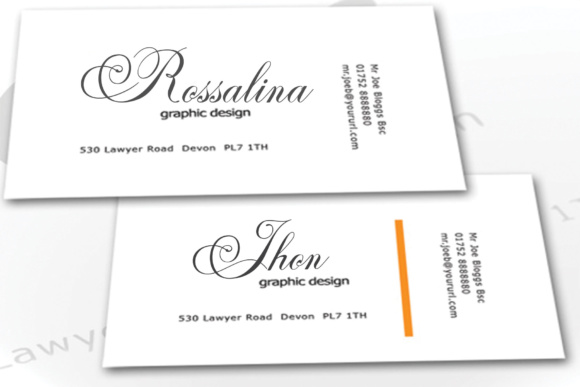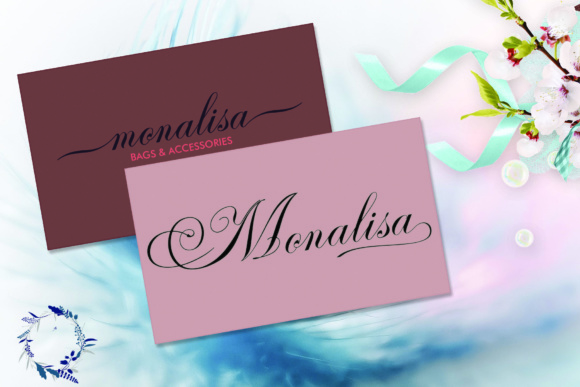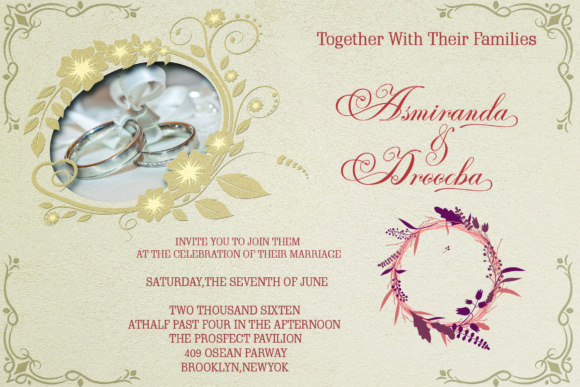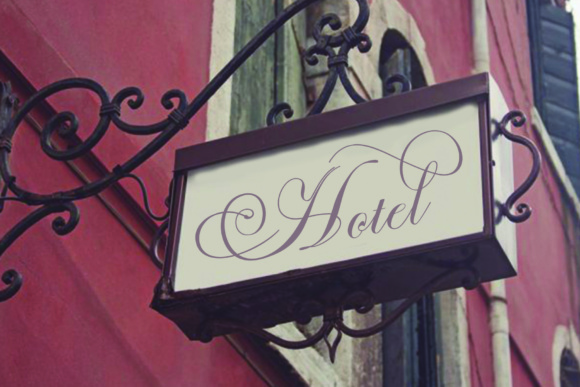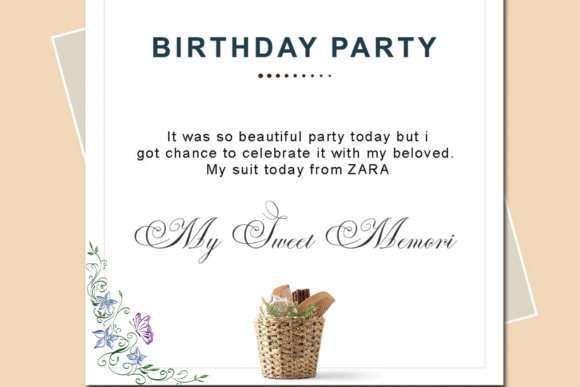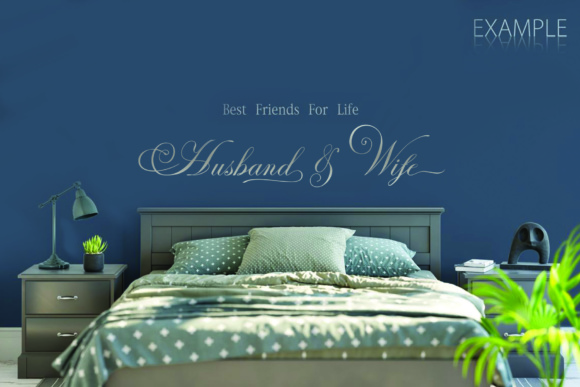
Fosshira Script Font: Elevate Your Designs with Elegant Handmade Calligraphy
The Fosshira is a handmade calligraphy font which will add a touch of elegance to every project. As a designer or crafter, you’re constantly on the lookout for unique and stylish typography to make your work stand out. Fosshira Script Font is here to help you achieve just that. In this article, we’ll dive into the world of Fosshira, exploring its features, benefits, and uses, as well as provide tips on how to incorporate it into your designs.
The Charm of Handmade Calligraphy
Fosshira Script Font is a beautiful example of handmade calligraphy, with each letter carefully crafted to exude a sense of elegance and sophistication. The font’s handmade nature gives it a personal touch, making it perfect for projects where you want to add a bit of warmth and character. Whether you’re working on a wedding invitation, a branding project, or a craft tutorial, Fosshira is sure to impress.
Key Features of Fosshira Script Font
- Handmade with love: Fosshira is carefully crafted by hand, giving it a unique and personal touch.
- Elegant and sophisticated: The font’s elegant lines and curves make it perfect for projects where you want to add a touch of luxury.
- Highly versatile: Fosshira can be used for a wide range of projects, from wedding invitations to branding and packaging.
- Easy to read: Despite its elegant nature, Fosshira is highly legible, making it perfect for both headings and body text.
Benefits of Using Fosshira Script Font
So why choose Fosshira Script Font for your next project? Here are just a few benefits of using this beautiful font:
- Adds a personal touch: Fosshira’s handmade nature gives your project a unique and personal touch that sets it apart from the rest.
- Elevates your brand: With Fosshira, you can add a touch of elegance and sophistication to your brand, helping you to stand out in a crowded market.
- Perfect for special occasions: Fosshira is perfect for special occasions such as weddings, anniversaries, and birthdays, where you want to add a touch of luxury and elegance.
Tips for Using Fosshira Script Font
Now that you’re excited about Fosshira Script Font, here are a few tips for incorporating it into your designs:
- Pair it with a sans-serif font: For a classic look, pair Fosshira with a clean sans-serif font such as Arial or Helvetica.
- Use it for headings: Fosshira is perfect for headings and titles, where you want to add a touch of elegance and sophistication.
- Experiment with colors: Fosshira looks great in a range of colors, from classic black and white to bold and bright hues.
Inspiration for Your Next Project
Still looking for inspiration? Here are a few ideas for your next project:
- Wedding invitations: Fosshira is perfect for wedding invitations, where you want to add a touch of elegance and sophistication.
- Branding and packaging: Use Fosshira to add a touch of luxury to your branding and packaging.
- Craft tutorials: Fosshira is great for craft tutorials, where you want to add a personal touch and make your project stand out.
In conclusion, Fosshira Script Font is a beautiful handmade calligraphy font that will add a touch of elegance to every project. With its highly versatile nature, ease of use, and range of benefits, Fosshira is perfect for designers and crafters looking to elevate their work. So why not give Fosshira a try and see the difference it can make?